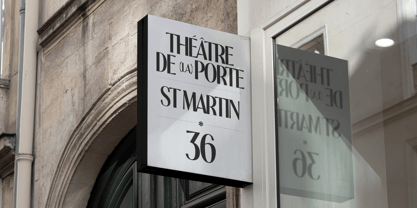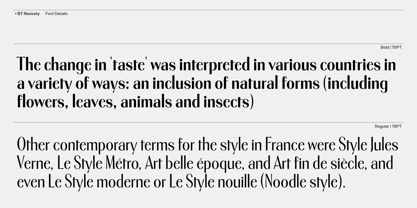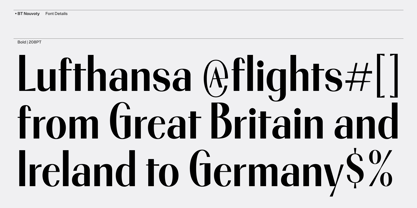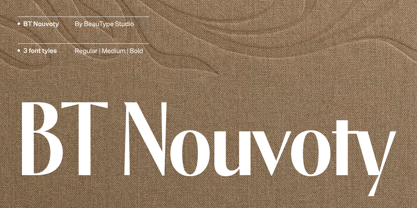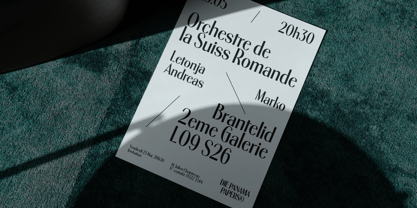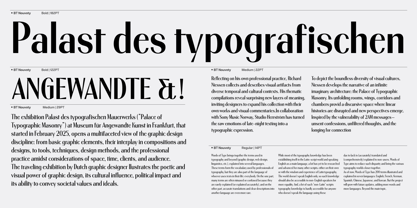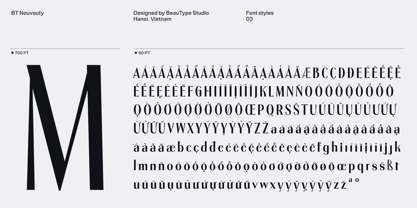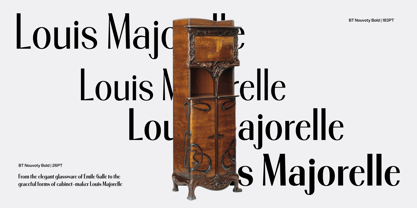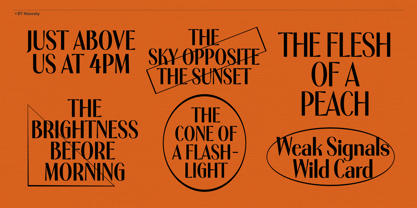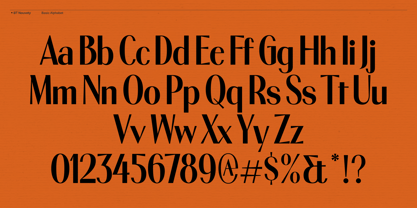
BT Nouvoty
BT Nouvoty is a unique fusion of Art Nouveau elegance and modern minimalist aesthetics. Designed with high contrast, its slender, soaring strokes create a refined yet striking overall effect. This narrow typeface accentuates a sense of grace, sophistication, classicism, and nobility. The font family includes three weights: regular, medium, and bold, specifically crafted as a display font, ideal for headlines, logos, or designs that demand attention and prominence.